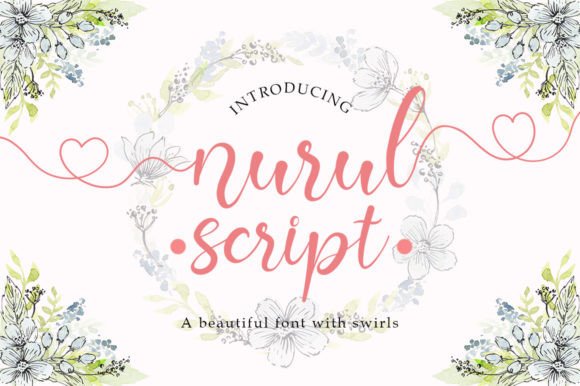
Nurul Script Font
Nurul Script Font is a luxury font is a natural & modern handwritten font. The past meets the present in this timeless handlettered font, a whimsical, elegant font perfect for wedding stationery & branding. Nurul Font is an incredibly stunning and sweet script, full of love. Fall in love with its delicate swashes! Perfectly macth for design like banner, book cover, t-shirt, branding, promotion, social media post, quotes, wedding, photography and more.